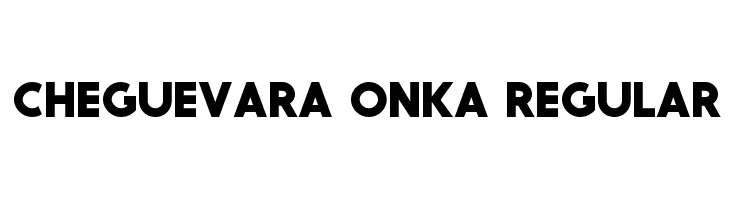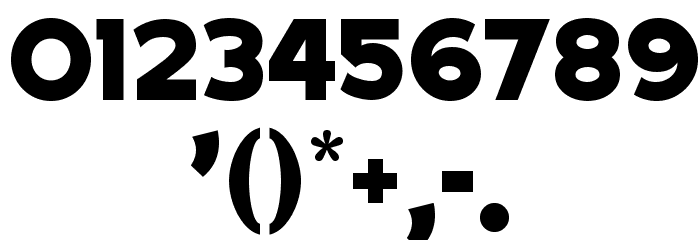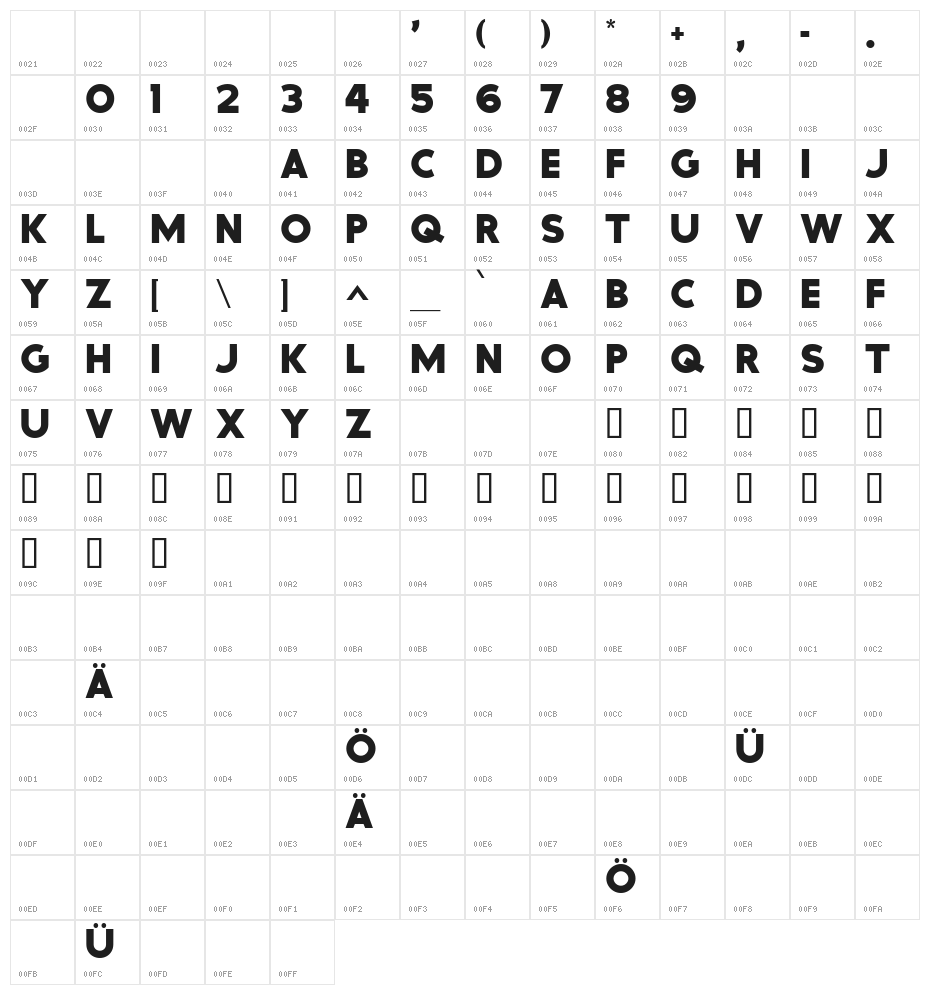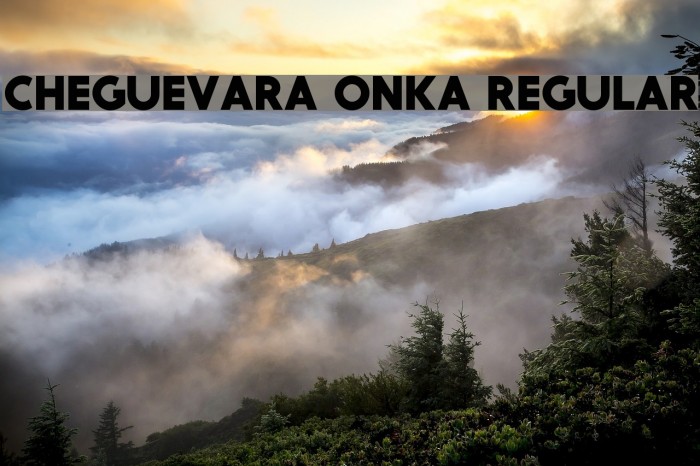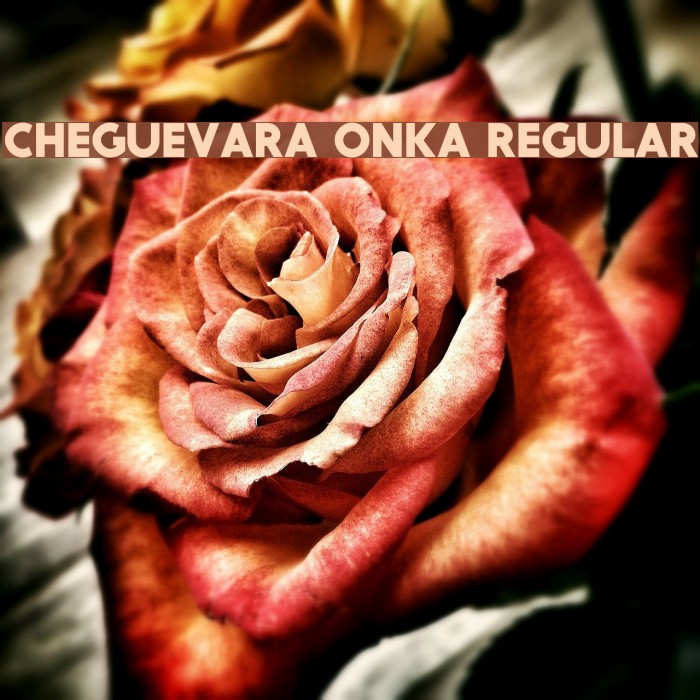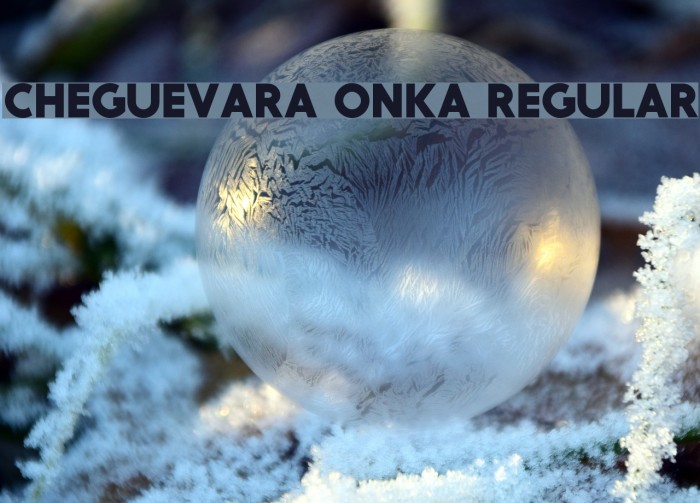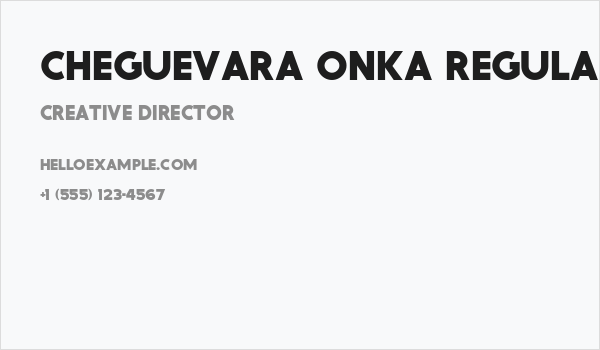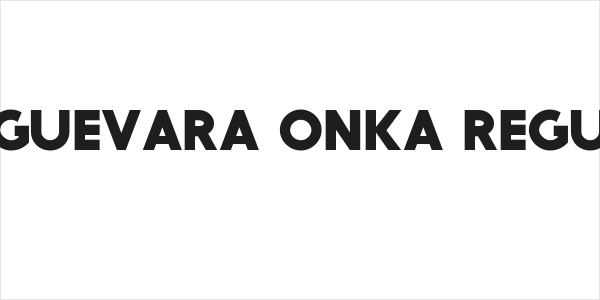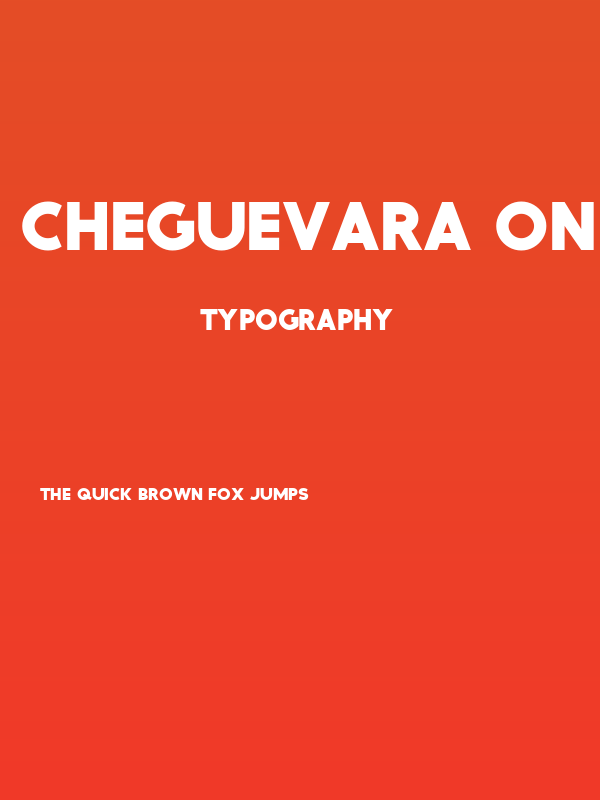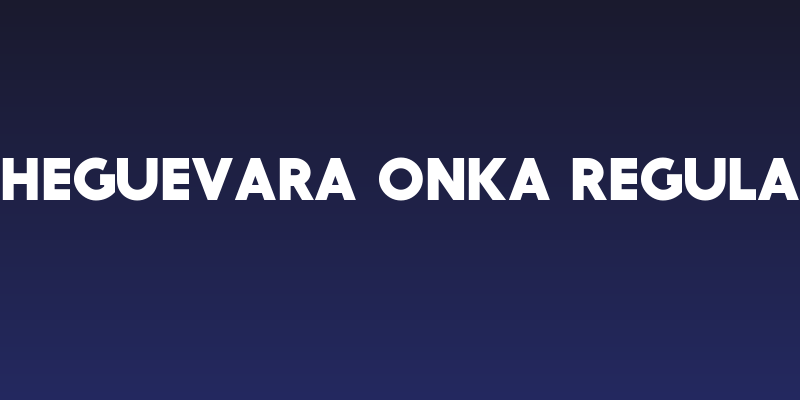
This font features bold, geometric letterforms with a strong presence. The characters are crafted with uniform stroke widths, giving it a modern and assertive appearance. The uppercase letters are particularly striking, with sharp angles and clean lines that convey a sense of strength and stability. The numerals and special characters maintain the same boldness, ensuring consistency across all glyphs. This font is designed to capture attention and make a statement, making it ideal for impactful design projects.
| Proposed Projects | Ideal for branding, poster design, headlines, and any project requiring a bold, impactful typeface. |